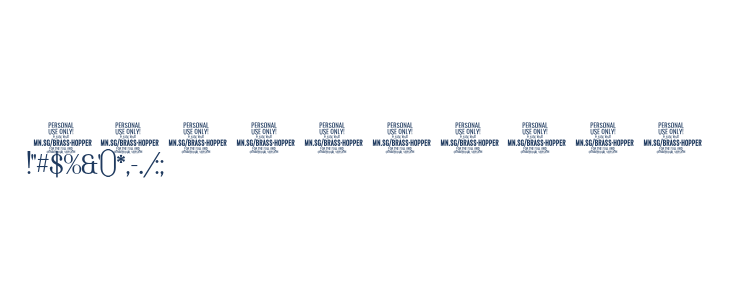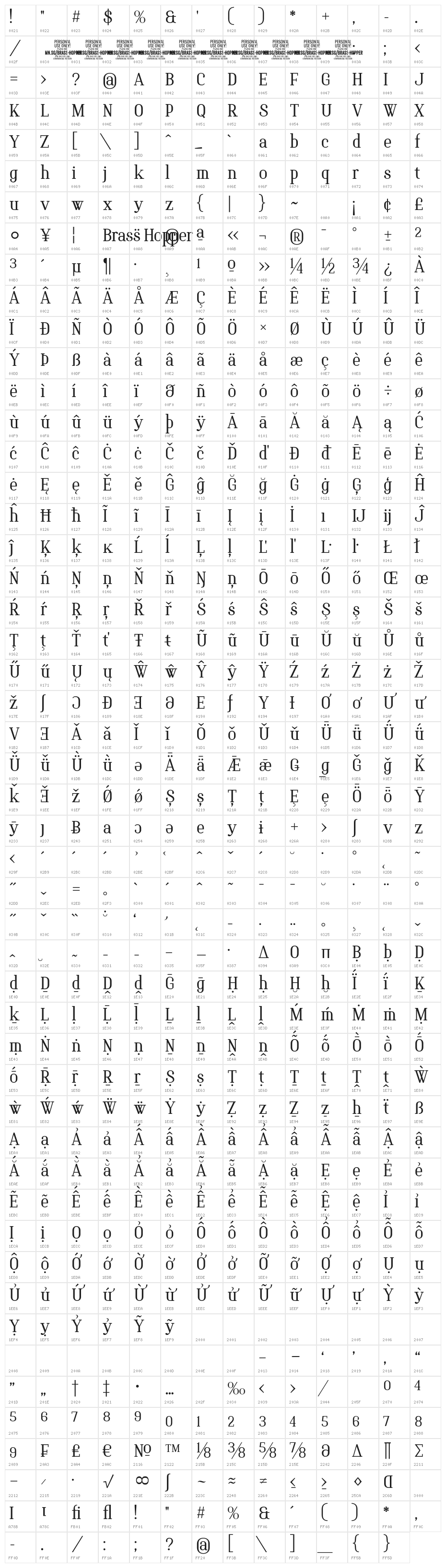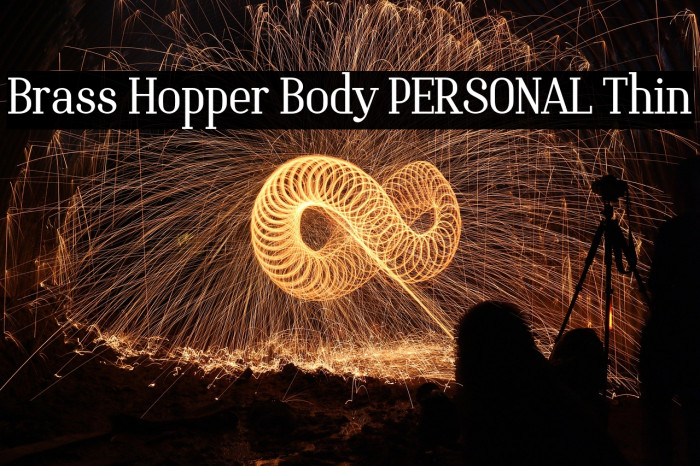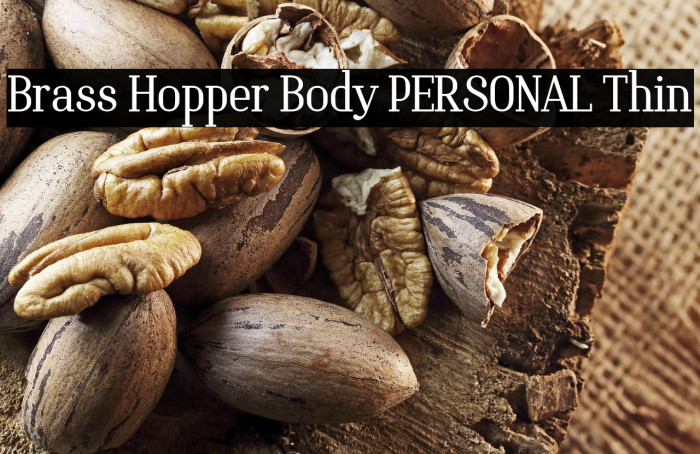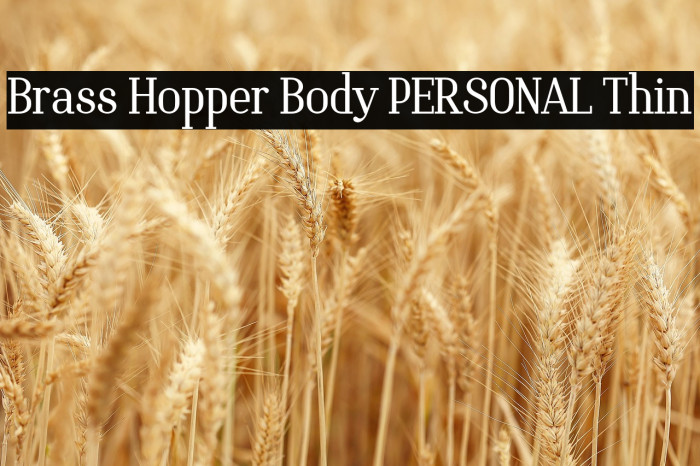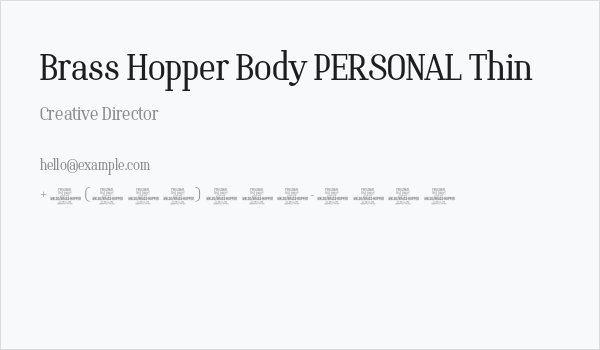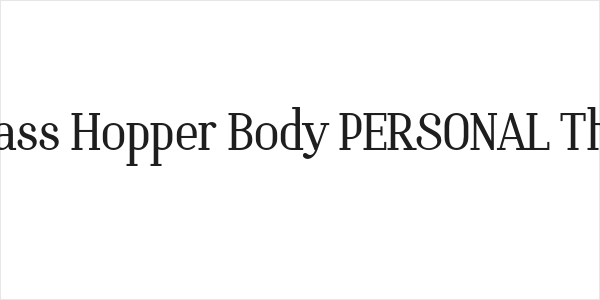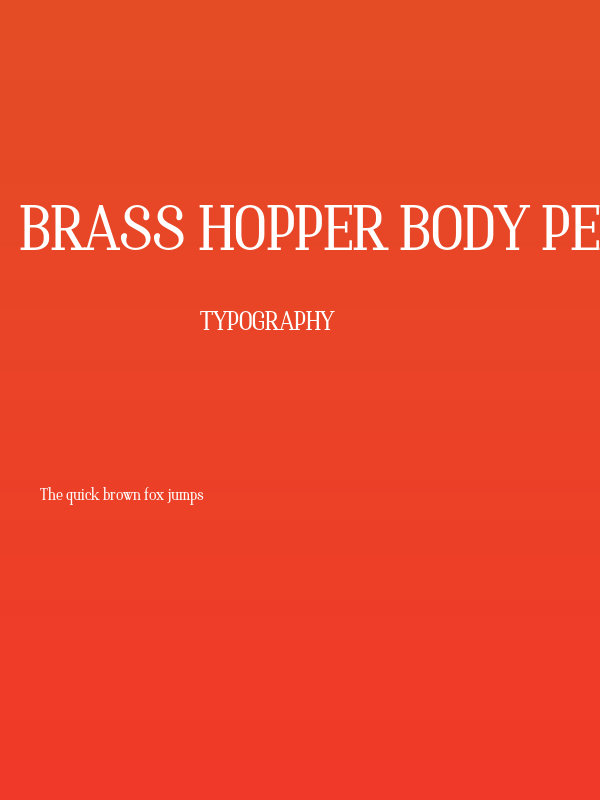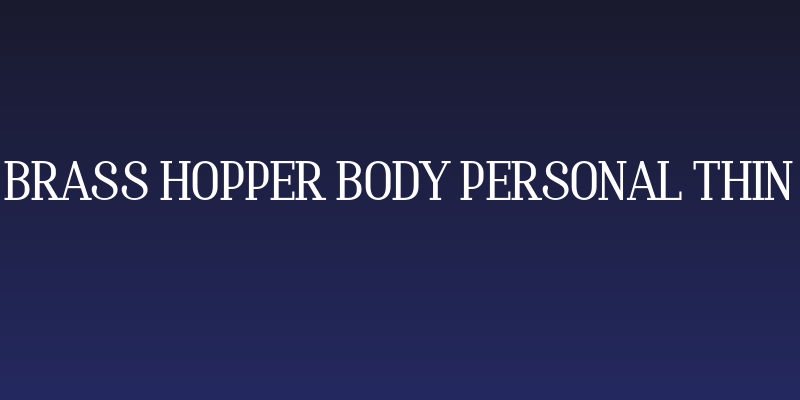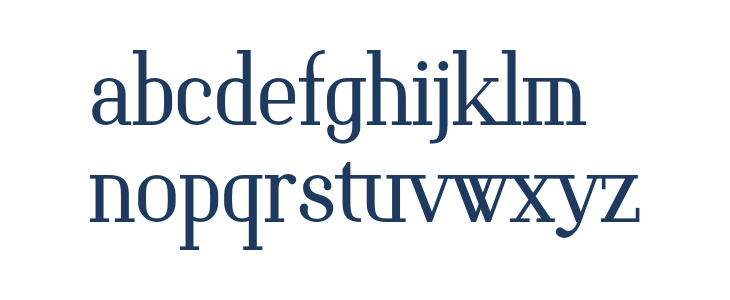
Brass Hopper Body PERSONAL Thin Font
Brass Hopper Body PERSONAL Thin Description
This font features a classic serif style with a modern twist, characterized by its thin, elegant strokes and high contrast between thick and thin lines. The uppercase letters are tall and commanding, while the lowercase letters maintain a consistent flow with slightly rounded edges. The numerals and special characters are designed to complement the alphabet, maintaining the same thin and refined aesthetic. This font exudes sophistication and is suitable for projects that require a touch of elegance and readability.